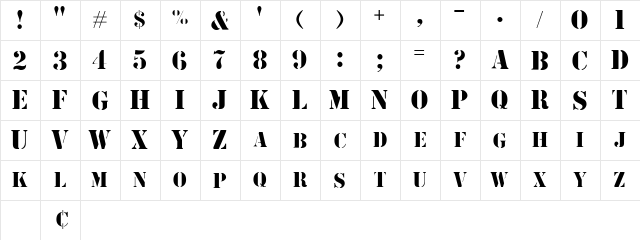
RoadieSSK Regular
Design Context for RoadieSSK Typeface
RoadieSSK takes a measured approach to typography — its balanced proportions and neutral character make it a reliable workhorse for both digital and print work.